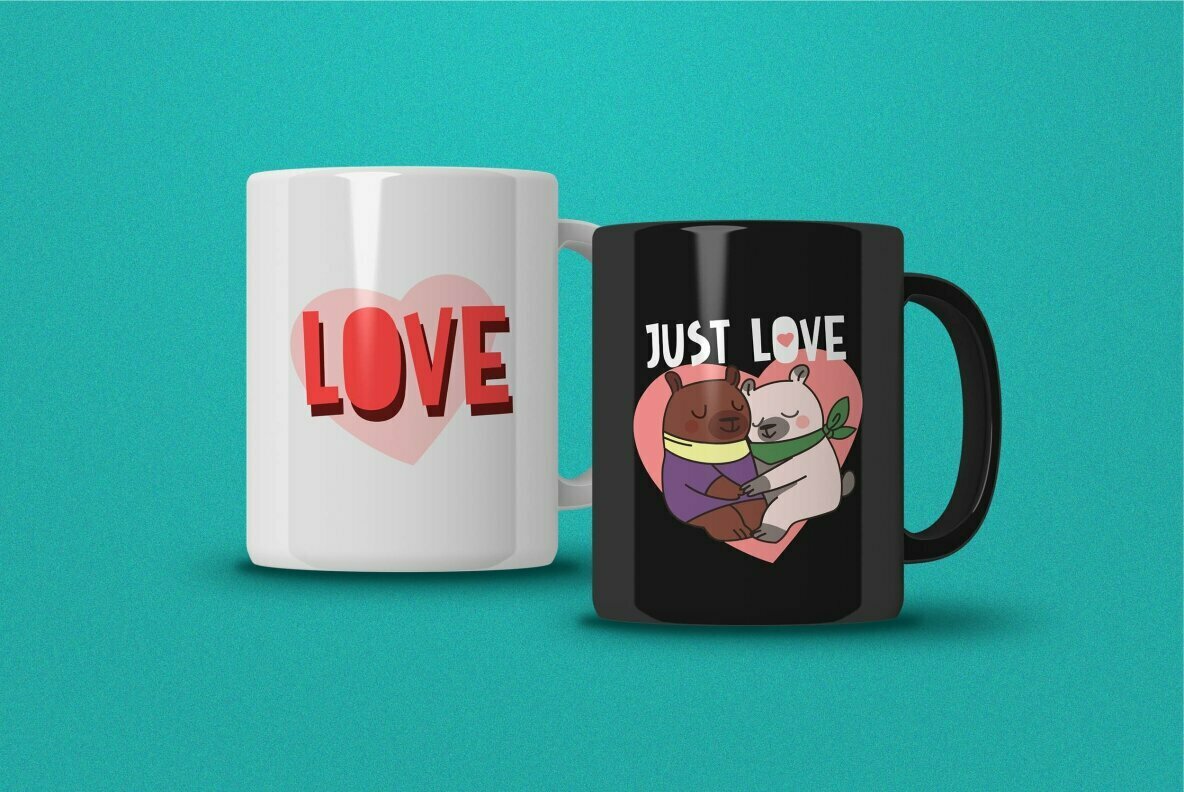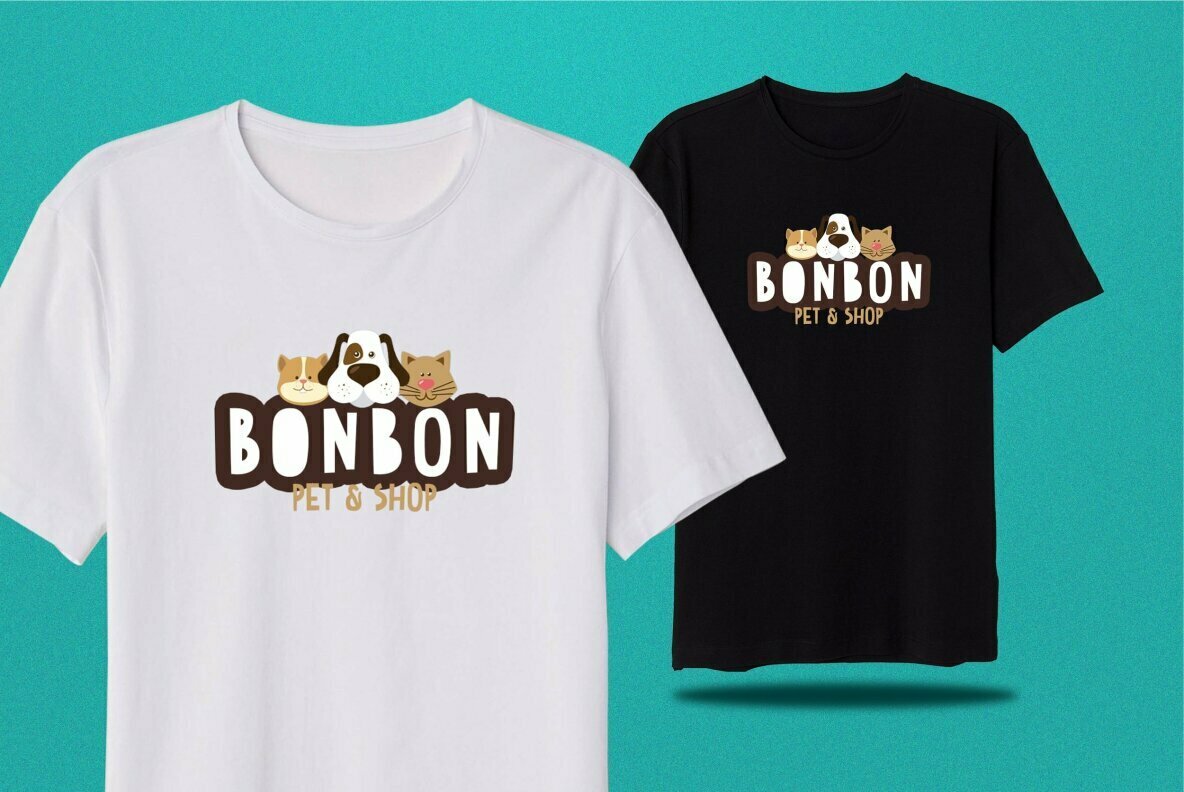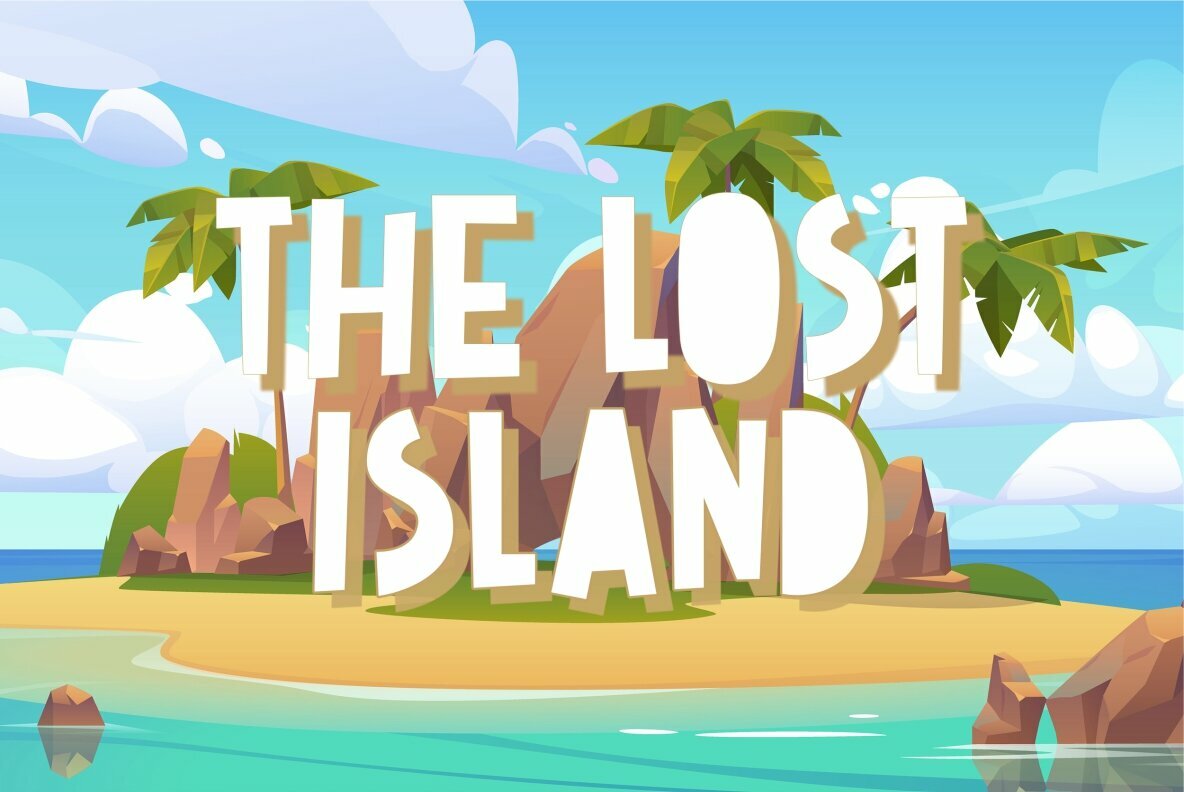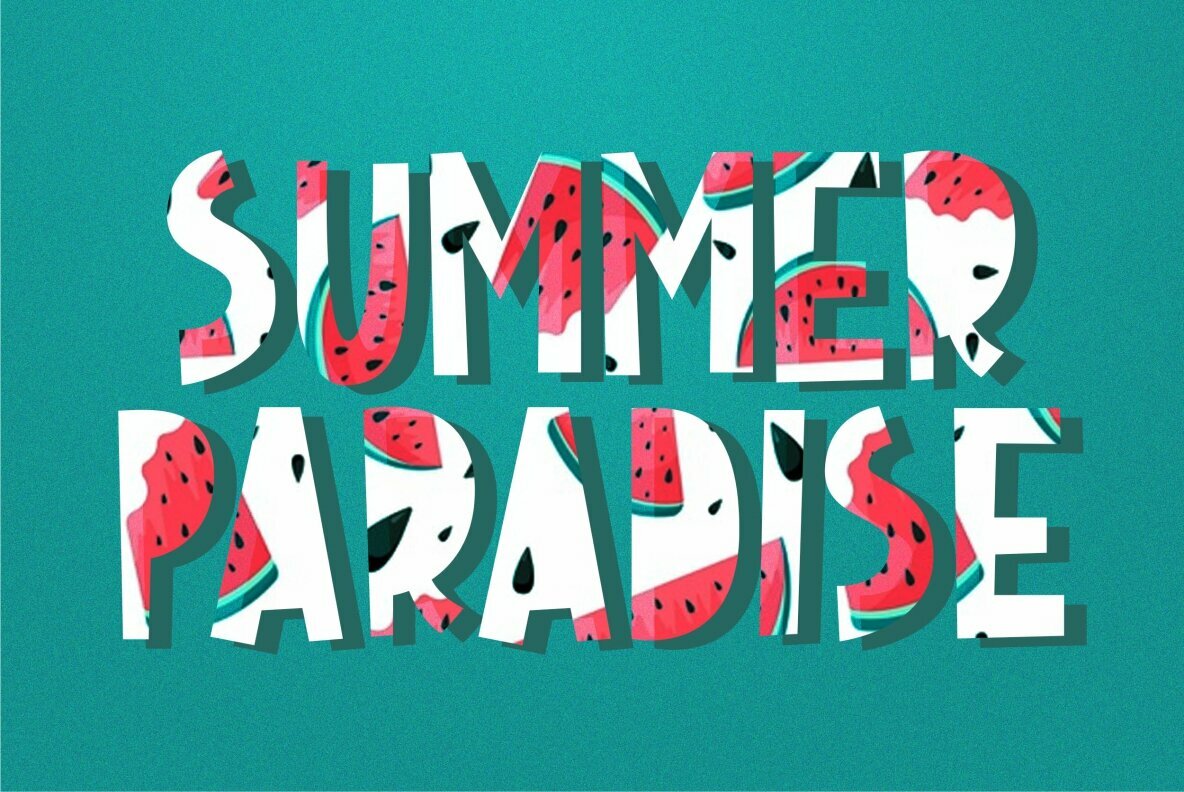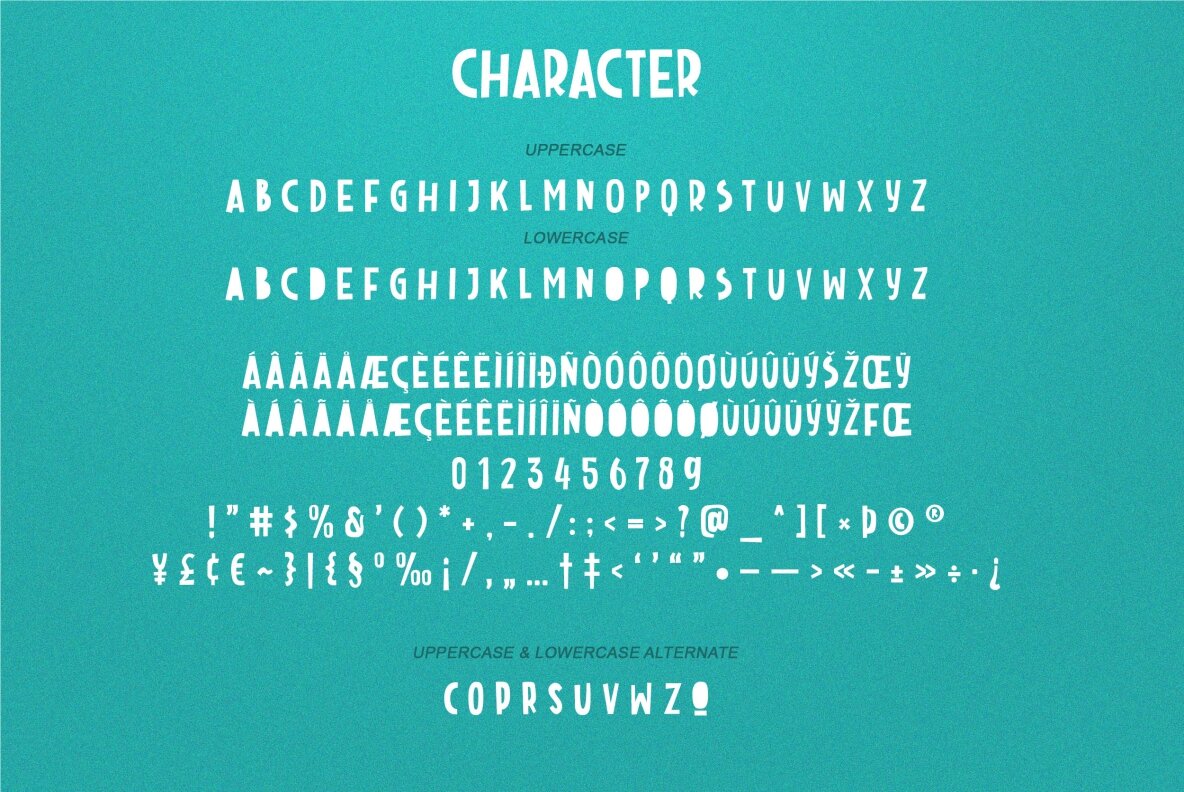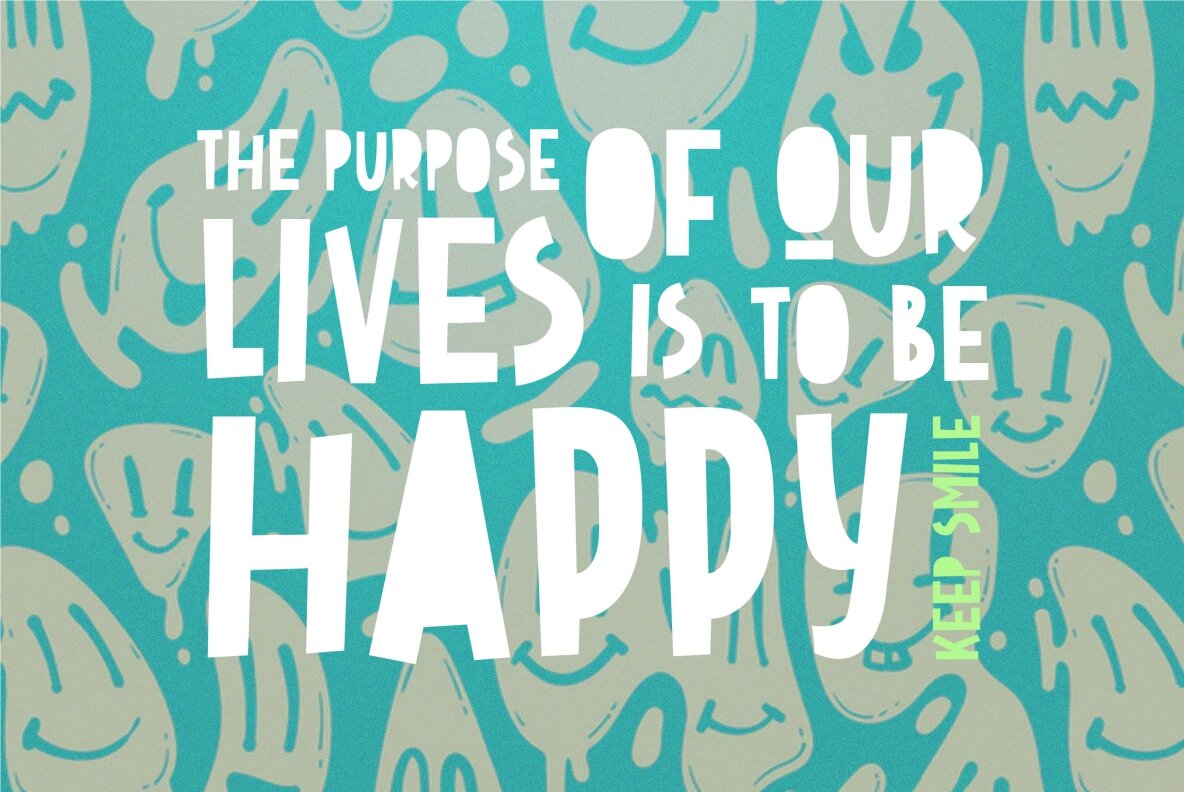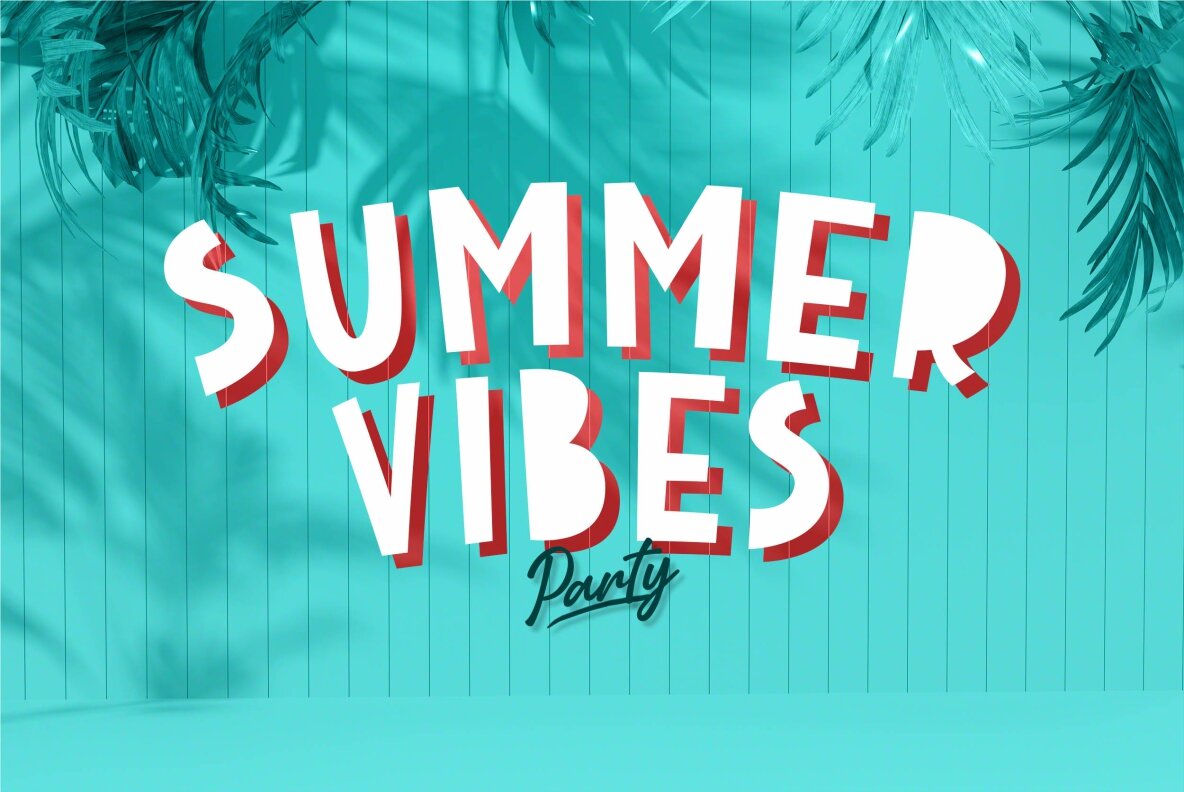
Beblock Font
Beblock
Beblock combines attractive curves with a fresh urban edge and build with all caps letters; delivering a stylish script which is guaranteed to add an eye-catching appeal to your logo designs, brand imagery, quotes, product packaging, merchandise & social media posts
- All Caps letters